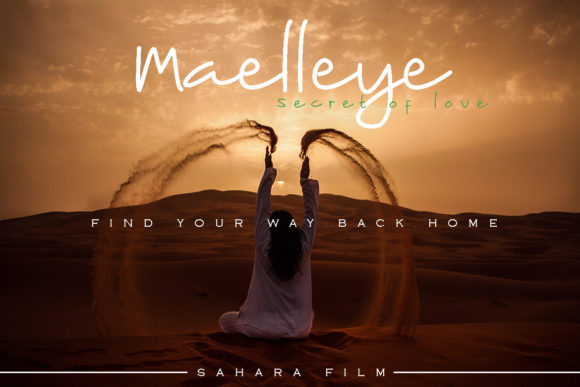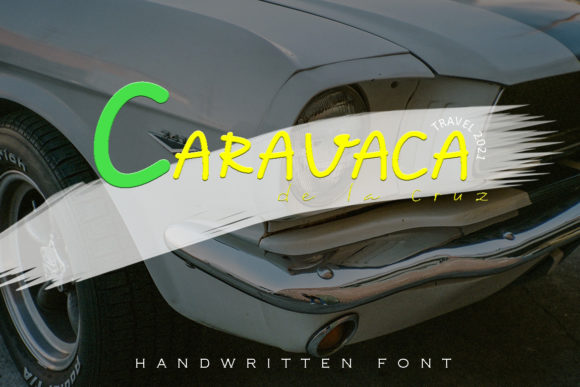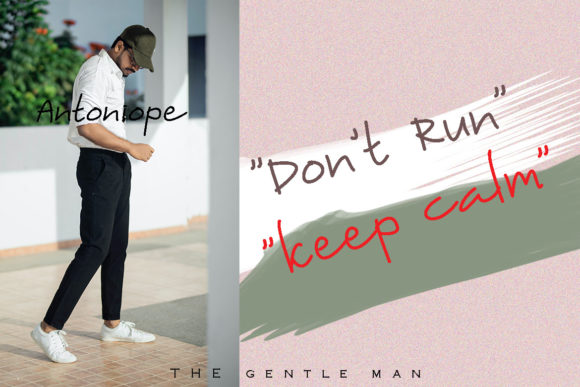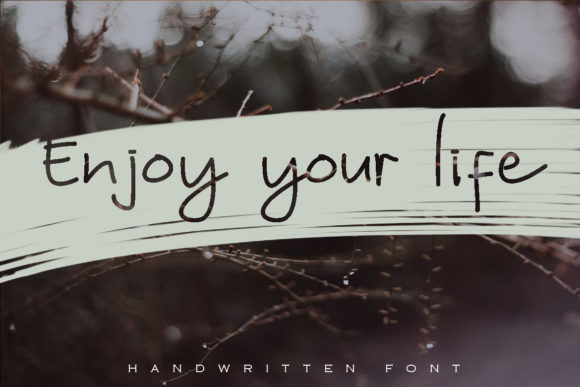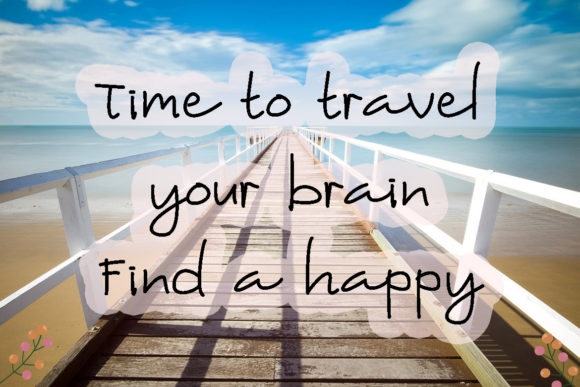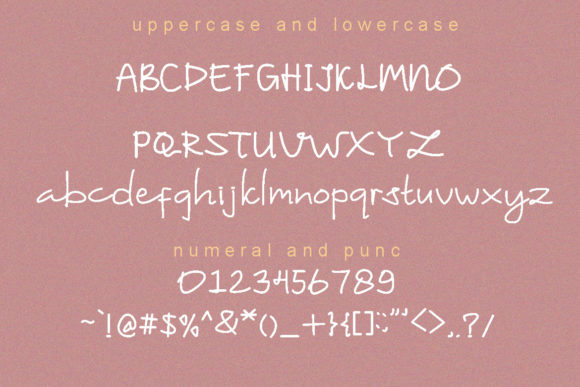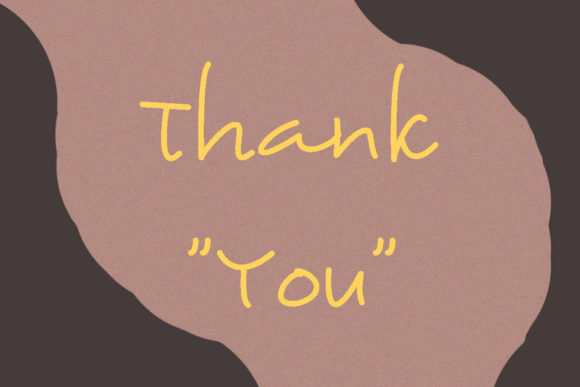
Maelleye Font
About Maelleye Font
Maelleye is a simple, flowing and adaptable script font. It can easily be matched to an incredibly large set of projects, so add it to your creative ideas and notice how it makes them stand out!